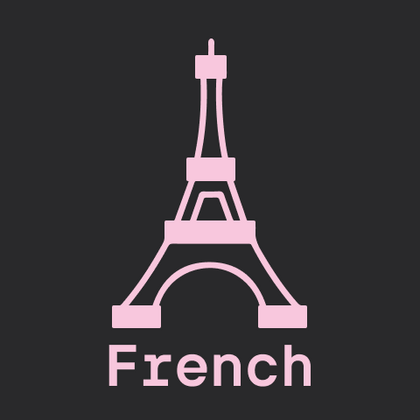
French fonts
French language projects demand perfect rendering of all diacritical marks—accents (é, è), cedillas (ç), and digraphs (œ). That’s why discerning designers choose TypeType’s French language fonts, where each character is meticulously crafted.
Our French fonts undergo multi-stage verification: we test accent placement, letter spacing, and readability across different point sizes. This makes them the optimal choice for branding, publishing, and web design projects where typographic excellence is non-negotiable.